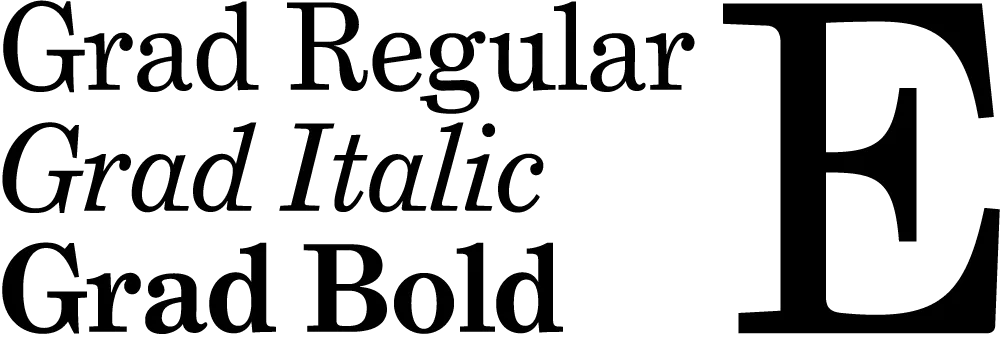
When I wrote Typecasting: The Use (and Misuse) of Period Typography in Movies over two years ago, I closed it with:
Well, lots of you did drop me a line, but so far I have not written the follow-up article. Instead, I have decided to post examples here, filed under “Son of Typecasting.”
Not long after writing and posting Typecasting in December 2001, I learned from a reader that a similar article by Scott Stowell had been published earlier that year in Trace/AIGA Journal of Design, Vol. 1, No. 1, called “Accident Grotesk.” I sent for a back issue to check it out.
Had I seen it before I wrote my article, I might have had second thoughts. The premise — and even the tone — was similar. However, Stowell chose completely different examples: Titanic (1997), Topsy-Turvy (1999), Amistad (1997), Donnie Brasco (1997), Dazed and Confused (1993), The Perfect Storm (2000), and American Psycho (2000).
After reading it, I generally thought it was good, but I was a bit disappointed. In a few of the examples Stowell gives, I think the fonts are mis-identified. For example, he claims that the lettering on the gangway shown early in Titanic is set in ITC Officina (1990-1998):
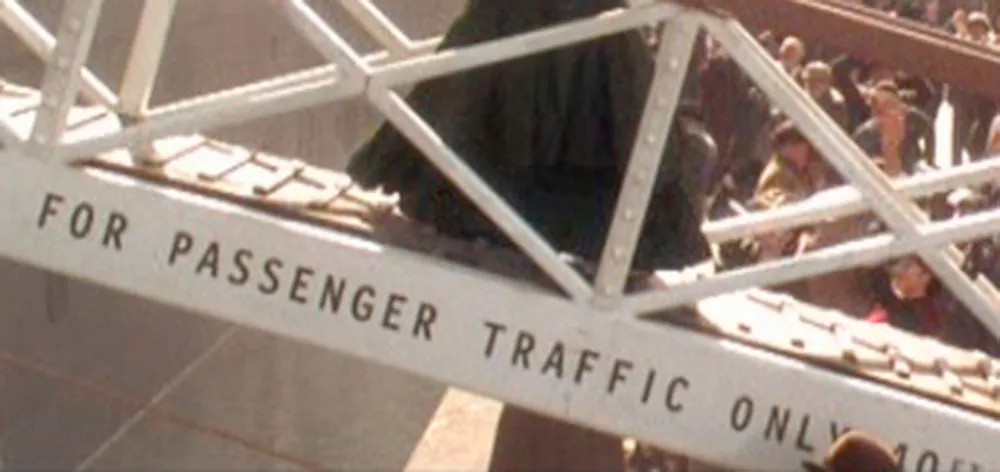
For one thing, the capital “I” in Officina has serifs. Other than that, it’s very close, but I don’t think it quite matches. Unfortunately, I haven’t been able to identify what it is, if it’s not Officina. I do agree that it does not look right for the era, whatever it is.
When I wrote my article, I wanted very badly to find type gaffes in Titanic but came up emptyhanded. After seeing Stowell’s find, I took another look and found an even better example:
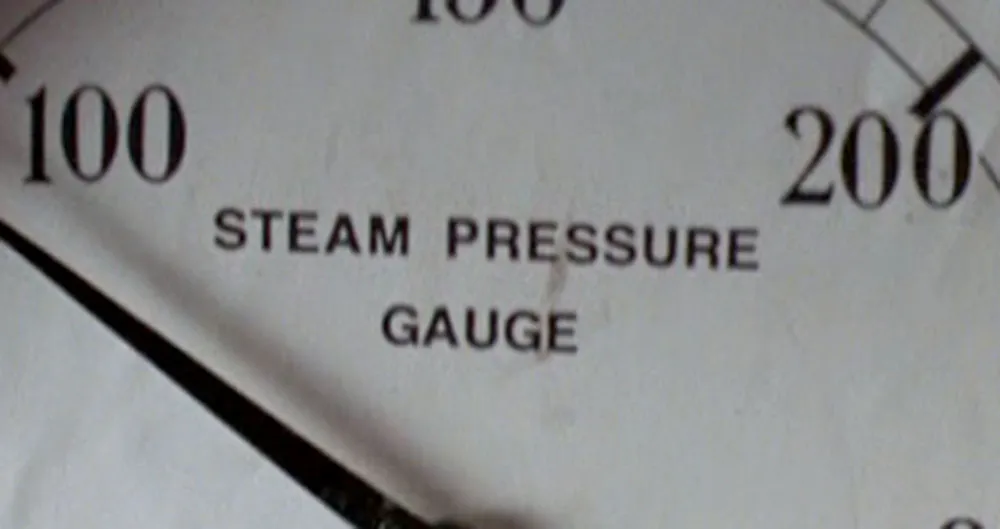
The steam pressure gauge label is set in Helvetica (1959).
(On a non-type-related note, there are also the famous Picasso and Braque paintings shown in one scene, but maybe they made it to the life boats.)
Anyway, I don’t want this to be a blow-by-blow critique of Stowell’s article. After all, it preceded mine by nearly a year, and I must give him credit for that.
Update: Just heard from Scott Stowell, the author of “Accident Grotesk.” He maintains that it really is Officina, with the serifs on the “I” lopped off. Given that I am unable to offer a more convincing alternative, I admit that it’s possible he’s right.
Scott also tells me that, ironically, it was the steam gauge gaffe that lead to his writing the article. When designer Michael Bierut mentioned it to him in 1998, it became the genesis of his article. He left it out because he didn’t want to take credit for it and thought the use of Officina was worse anyway.
Further Update: James Mosley, who writes about the history of type among other things, points out that Helvetica is not a completely anachronistic choice for the steam gauge. There did exist at the time of the Titanic ancestors of Helvetica that looked remarkably like it in some respects. So, technically, it’s not correct for the period—I think Akzidenz Grotesk would have been a better choice—but it’s not dissimilar to what might have been used.
I recently noticed Coquette used extensively in the book “Everything for Baby” by Adélaïdé D’Andigné and Alain Gelberger, published by Stewart, Tabori & Chang last year. Notice how the baby in the photo seems very interested in the font. Obviously, a budding typophile.
One of the fonts I’m getting close to finishing is Grad, the most recent type design of Phil Martin. Phil designed it in the early 1990s for use in a newsletter he published called Re:Language. Until I started work on it earlier this year, it only existed as a set of bitmap fonts on Phil’s old DOS computer, and it only worked with the old desktop publishing/word processing program XyWrite.
Grad is essentially an enhanced and augmented version of Century Schoolbook. While Phil did his version by modifying bitmaps of the Bitstream version of Century Schoolbook, I went back to original American Type Founders specimens, creating my own version of Century Schoolbook, rather than relying on existing digital versions. My Century Schoolbook fonts won’t be released, but were used as the basis for the new Grad.
Stylistically, Grad is similar to late nineteenth century faces like Ronaldson or Bookman, with other touches that could only come from the mind of Phil Martin. In the initial release, there will be three styles: Regular, Italic, and Bold (as shown above). There is also a condensed style planned for later release.
If you want to see it in action in text, here is a PDF from Phil’s website (a chapter of his on-going autobiography) which is set in the final PostScript Type 1 versions of the fonts. [Update: Phil’s website no longer exists.]
I’m doing Grad at Phil’s request, but I will be marketing it in the usual venues and splitting the revenues with Phil.
Notebook is a new section of the Mark Simonson Studio site where I can put various items which are of interest me and (I hope) to visitors such as yourself.